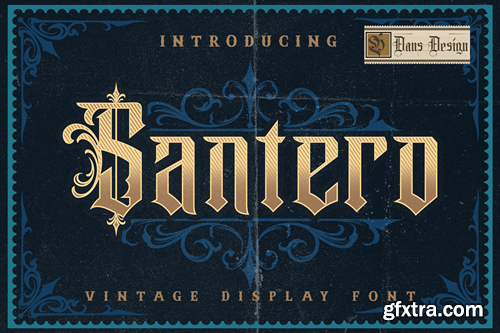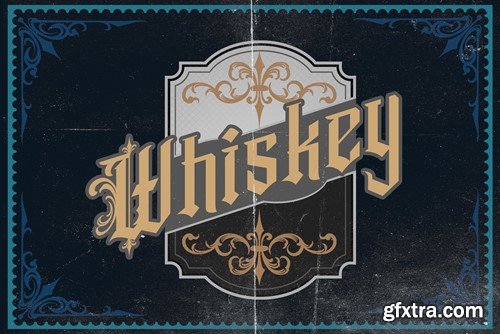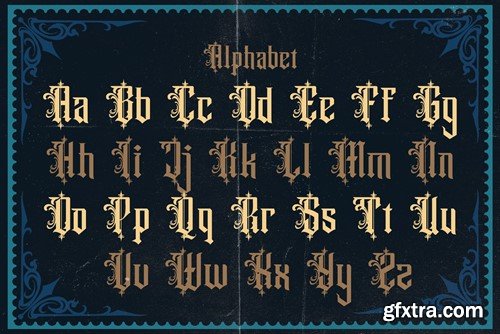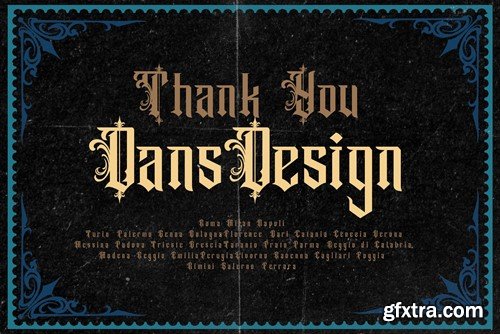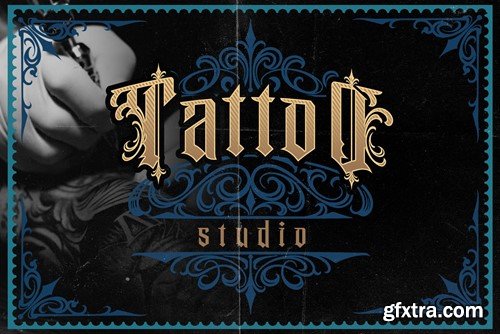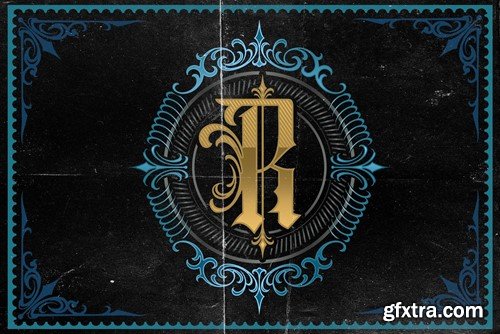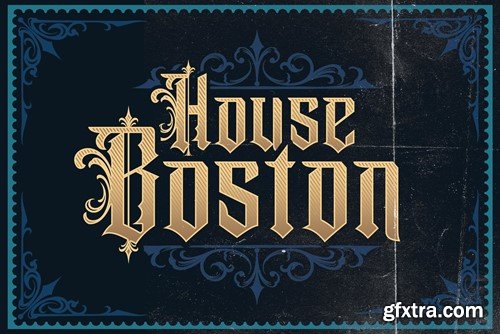
Santero Modern Blackletter Font B4FNSD4
Santero Modern Blackletter Font
Santero Modern Blackletter Font Santero a distinct, highly detailed, and chic Blackletter font. It would make a great choice for exquisite retro-urban designs, tattoo business branding, logos, vintage designs, and more. Santero (OTF/TTF) Featured : Accents (Multilingual characters) PUA encoded Numerals and Punctuation (OpenType Standard) Thanks for downloading